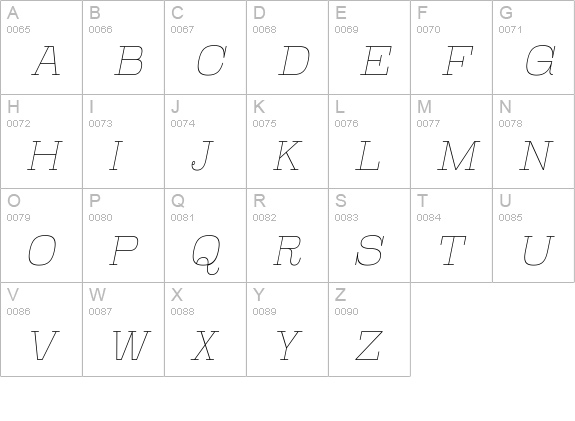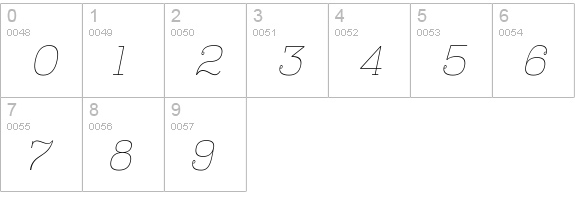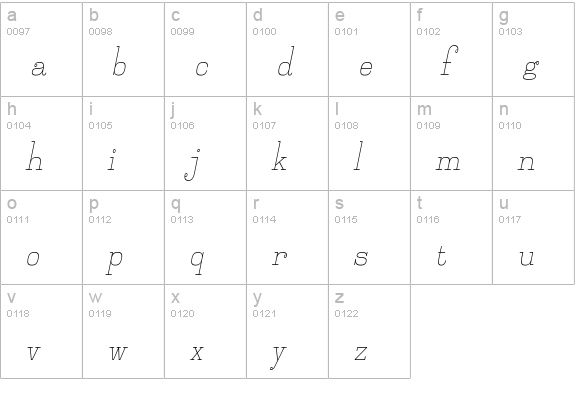
Jillsville Italic Font Details
Jillsville Italic is a distinctive, italic variant in the Jillsville typeface family \xE2\x80\x94 well suited to design and typography projects.
Introducing Jillsville Italic font, a sleek and modern typeface designed to add a touch of sophistication to your projects. With its elegant slanted style, Jillsville Italic exudes a sense of contemporary flair while maintaining a classic appeal. The clean lines and refined curves of this font make it perfect for various design applications, from branding to editorial design. What sets Jillsville Italic apart is not only its timeless design but also the fact that it is completely free to download. Yes, you read that right - this stunning font is freely available for you to enhance your creative endeavors. Simply head over to FontsMarket.com to access this valuable resource and elevate your projects with the distinctive charm of Jillsville Italic. Download it today and let your creativity shine with this beautiful typeface.